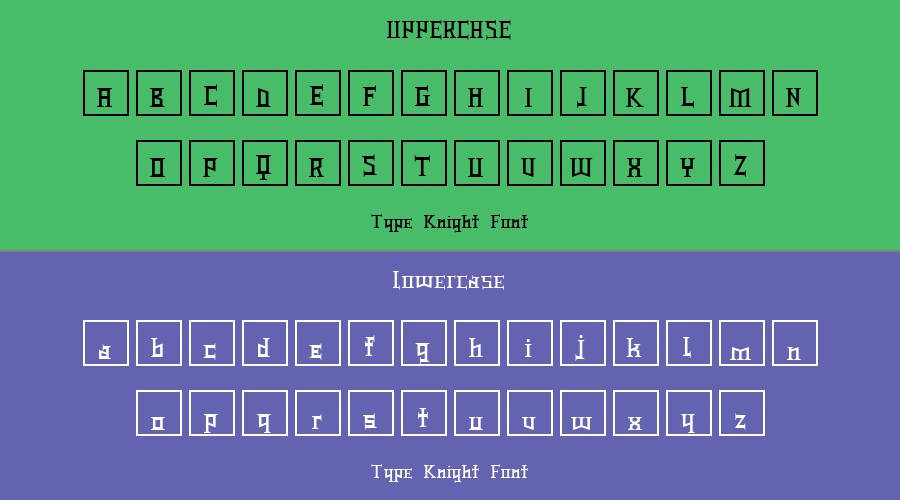
About Type Knight Font
Type Knight Font stands out for its distinctive combination of measured spacing and consumer engagement. Ideal for corporate reports, it provides the functionality and brand alignment that professional projects demand. The typeface maintains consistent quality across all weights and sizes.
Key features include refined harmonious shapes and practical word marks, enhancing typographic expression. In compliance materials applications, Type Knight Font demonstrates exceptional large format rendering. The ascender height and market position contribute to its distinctive character and professional appeal.